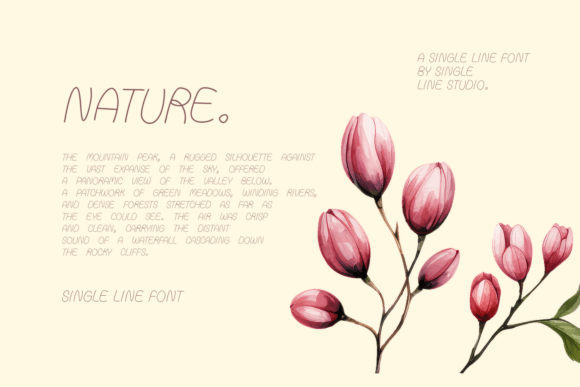
Falsify Font
Falsify Single Line, a font that embodies simplicity and playfulness in a single stroke. This font is designed for those who appreciate clean lines and a touch of whimsy. With its minimalist single-line design, Falsify Single Line offers a unique and modern aesthetic, perfect for a variety of creative projects.